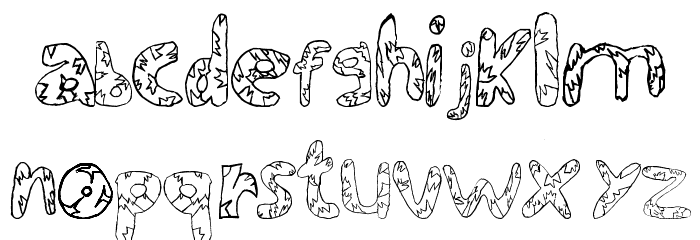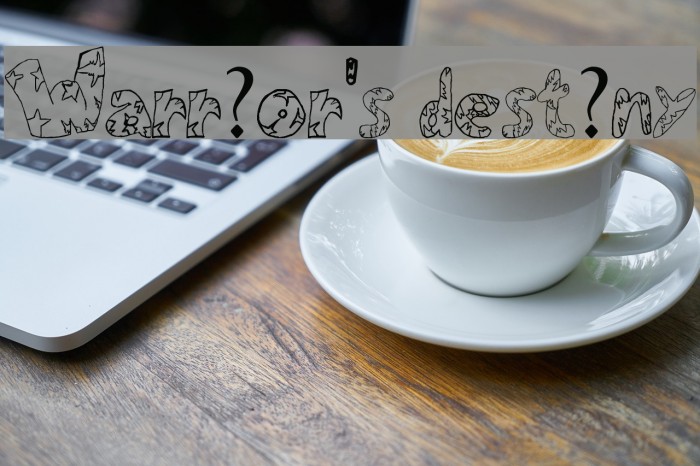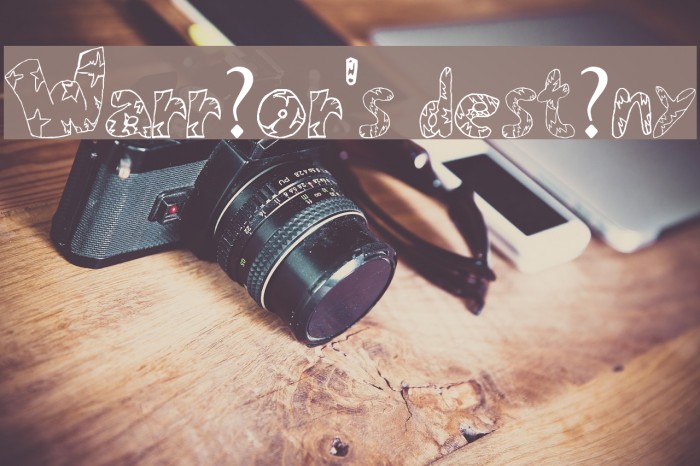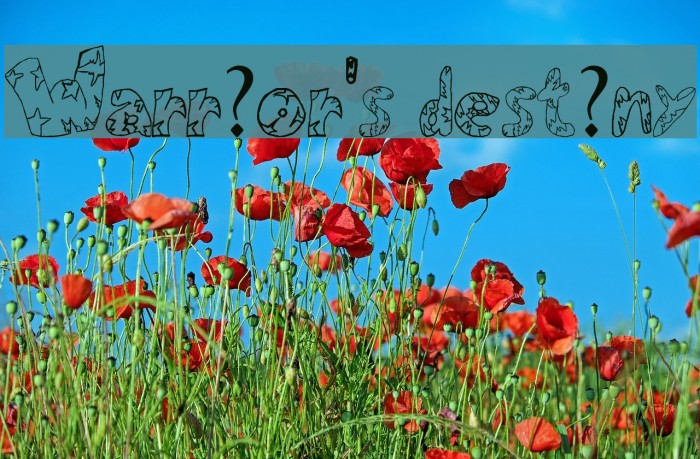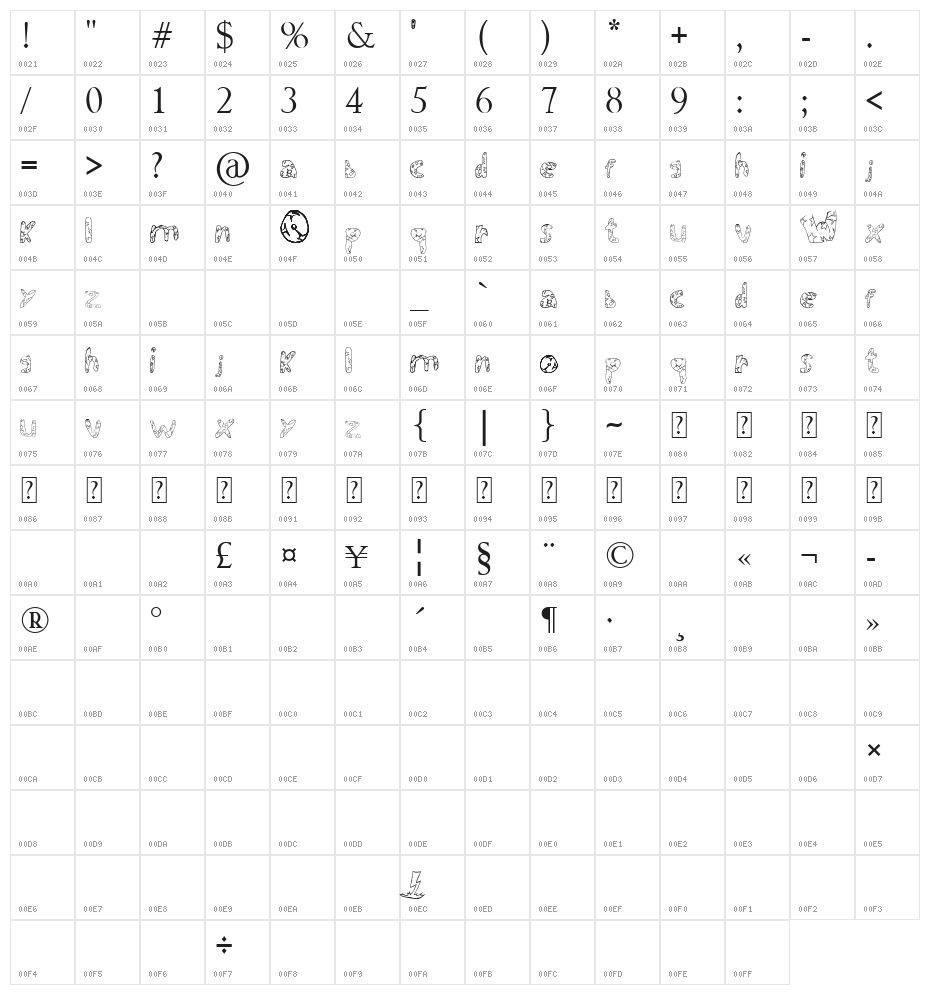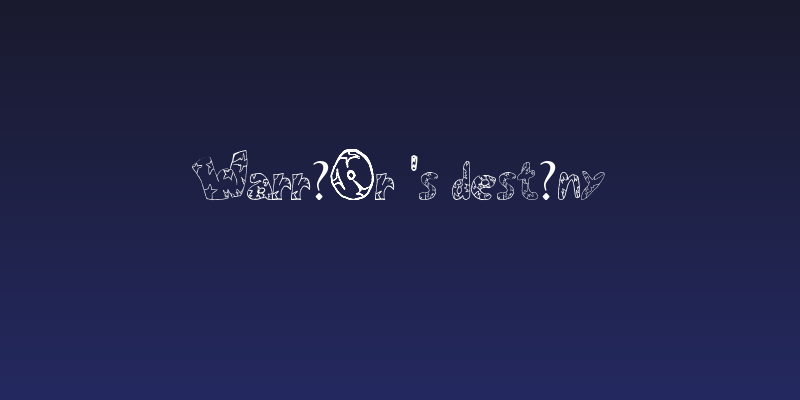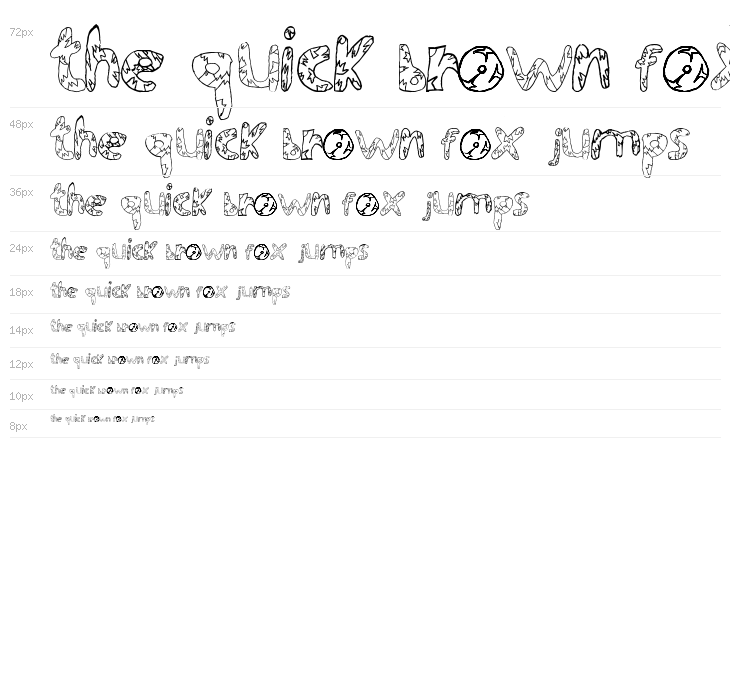
Warr?or's Dest?ny Font
This font features a bold and playful design with a unique, hand-drawn aesthetic. The letters are filled with intricate patterns and textures, giving each character a distinct and artistic appearance. The uppercase and lowercase letters maintain a consistent style, with rounded edges and a slightly irregular form that adds to the whimsical feel. The numbers and special characters are similarly styled, ensuring a cohesive look across all elements. This font's decorative nature makes it ideal for creative projects that require a standout, artistic touch.
A bold, hand-drawn font with intricate patterns and a playful, artistic style.
- Font: Warr?or's Dest?ny
- Proposed Projects: Ideal for children's book covers, playful branding, artistic posters, and creative invitations.
- Overall Style: Artistic, Playful, Whimsical